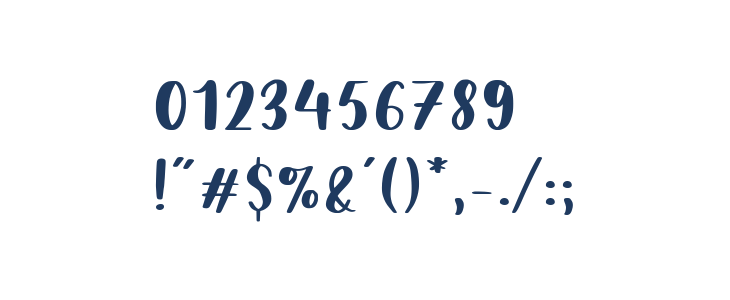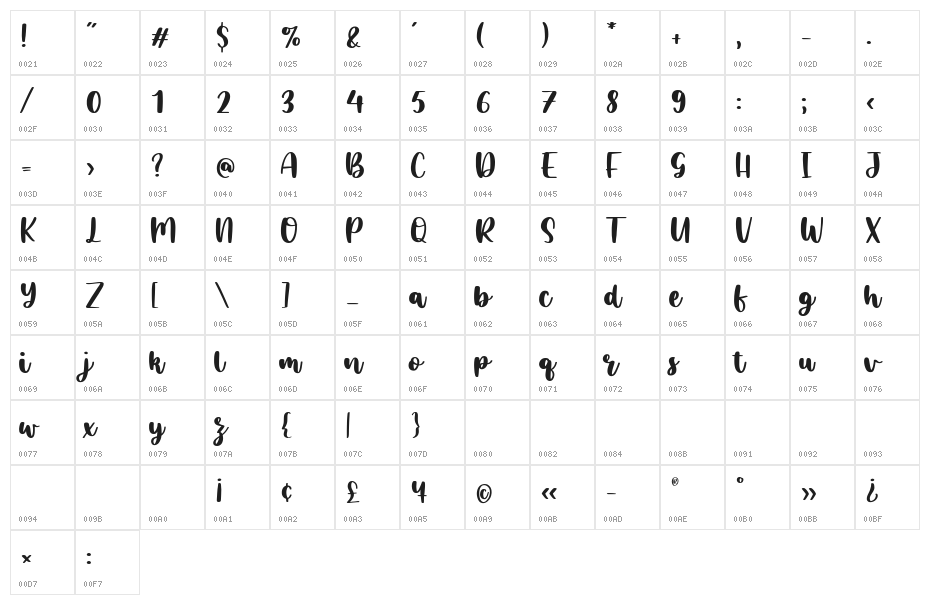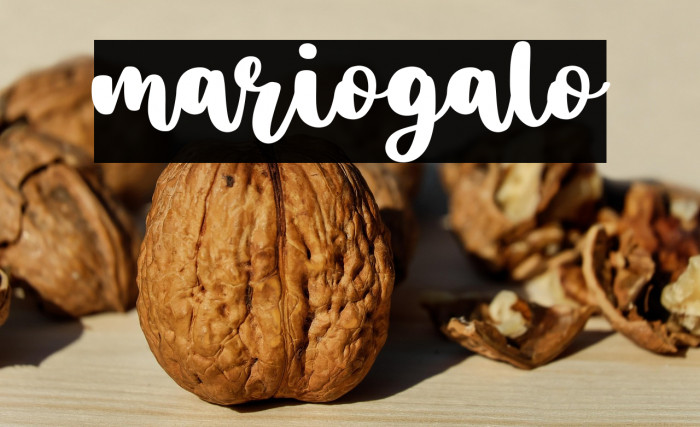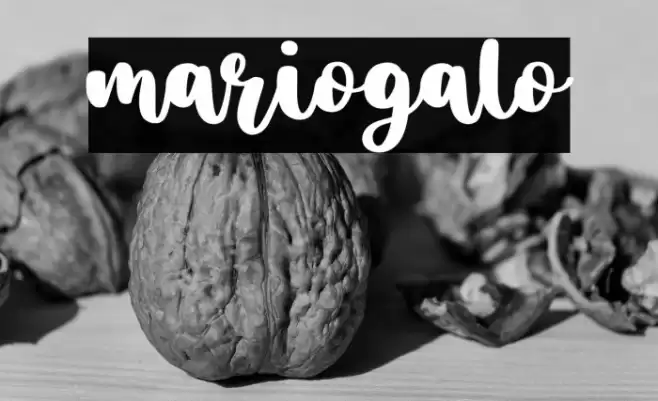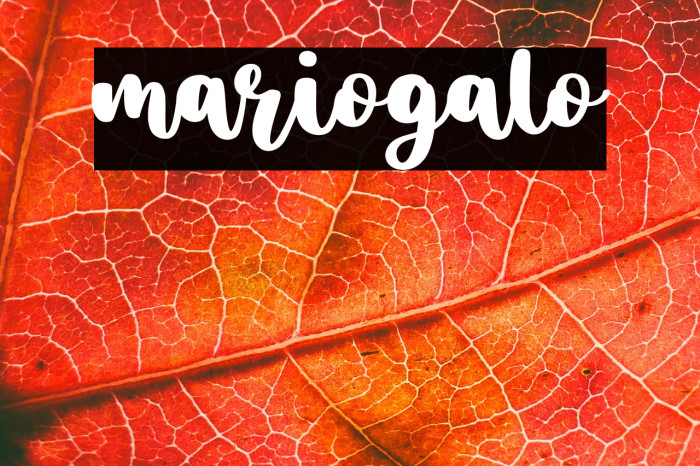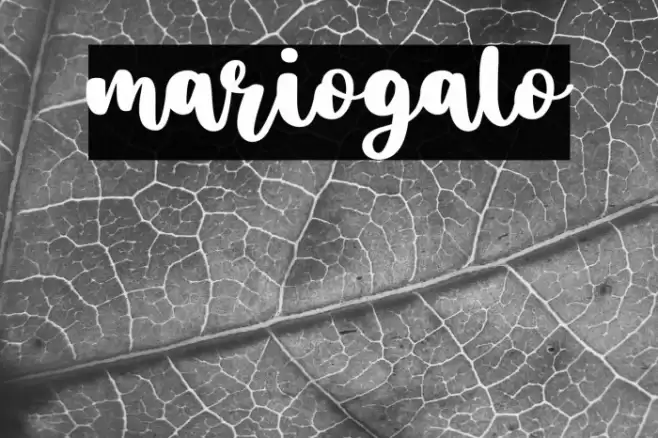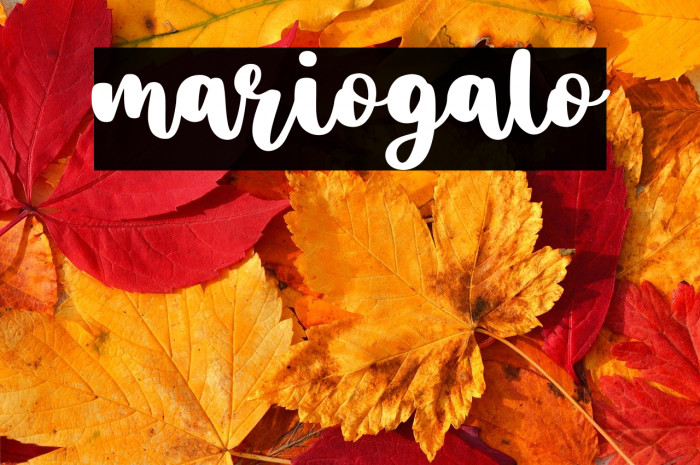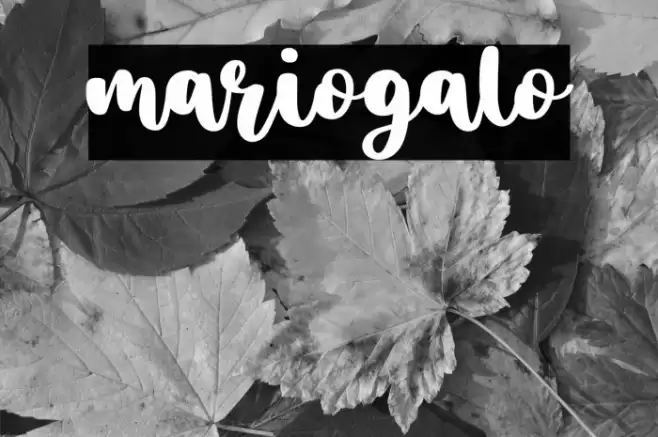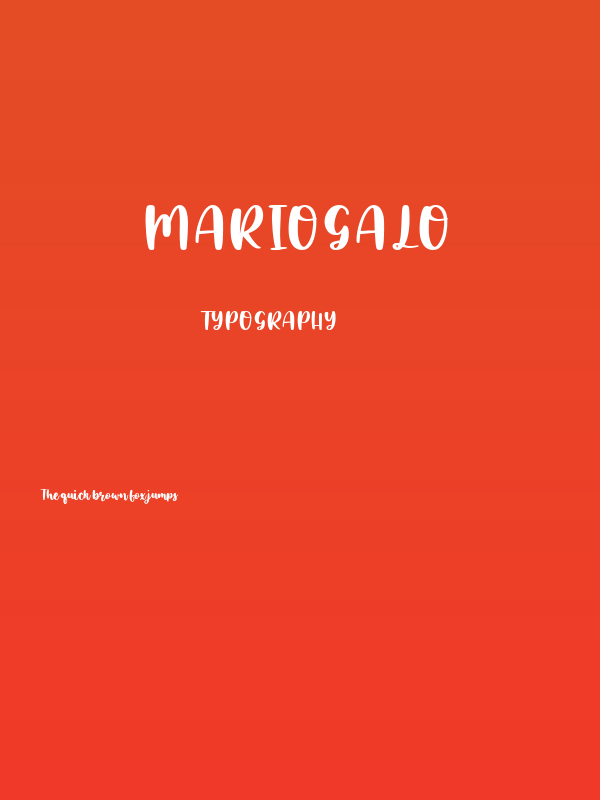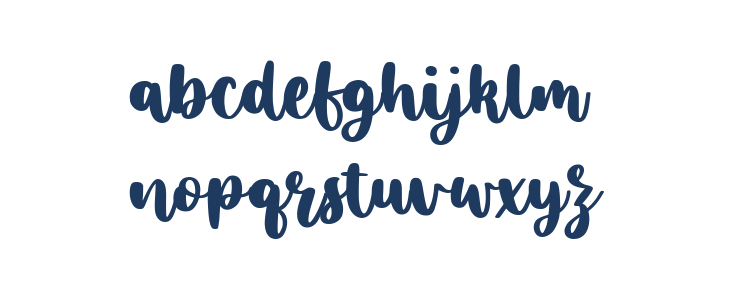
mariogalo Font
mariogalo Description
This font features a bold, handwritten style with a playful and energetic feel. The characters are rounded and fluid, giving them a friendly and approachable appearance. The uppercase letters are slightly taller than the lowercase, maintaining a consistent width throughout. The numerals are bold and easy to read, matching the style of the letters. Special characters are included, maintaining the same playful aesthetic. This font is ideal for projects that require a personal touch or a casual, fun vibe.